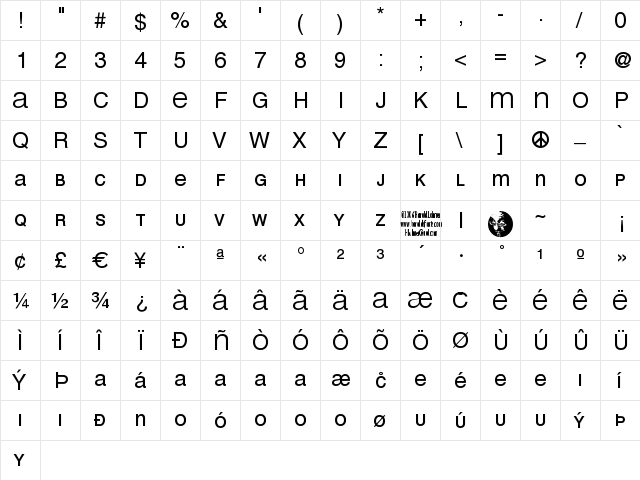
MEAN 26 Sans Regular
Design Context for MEAN 26 Sans Typeface
MEAN 26 Sans is a composed and adaptable typeface that performs quietly and consistently across a wide range of design contexts.